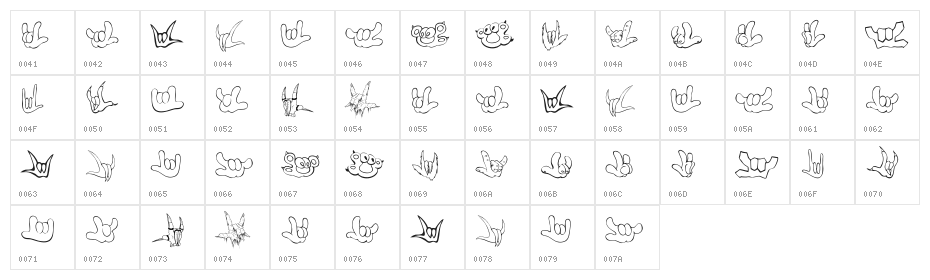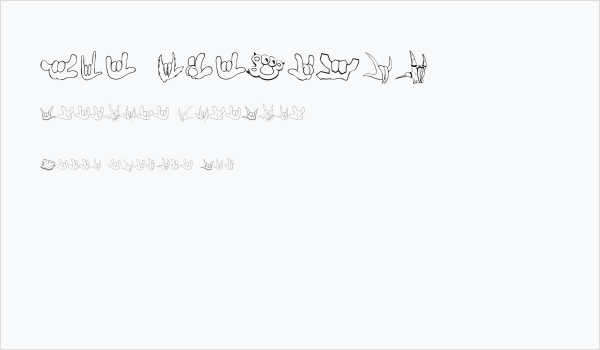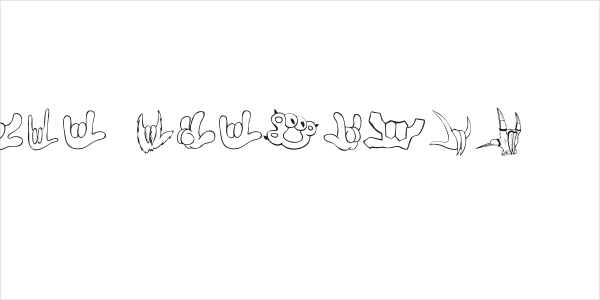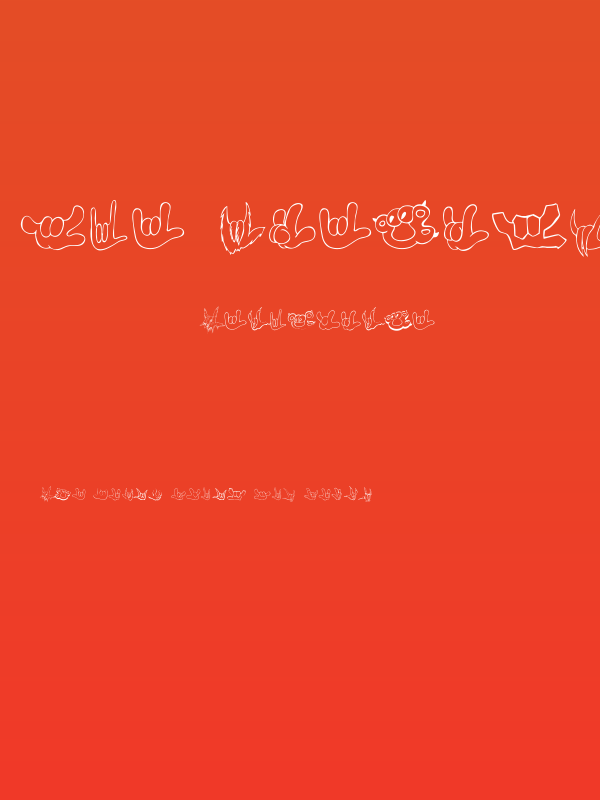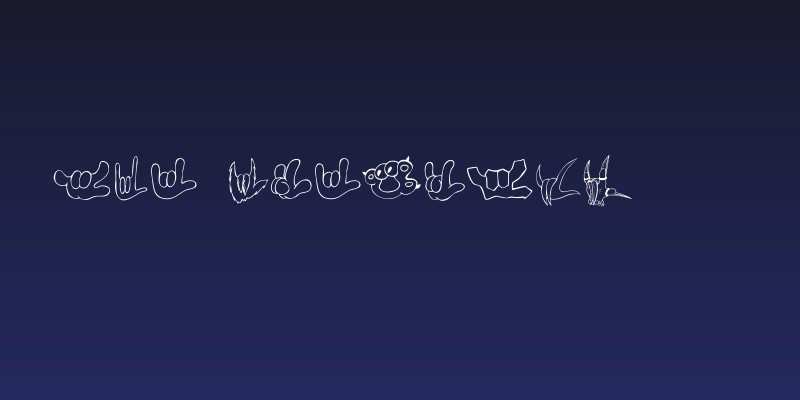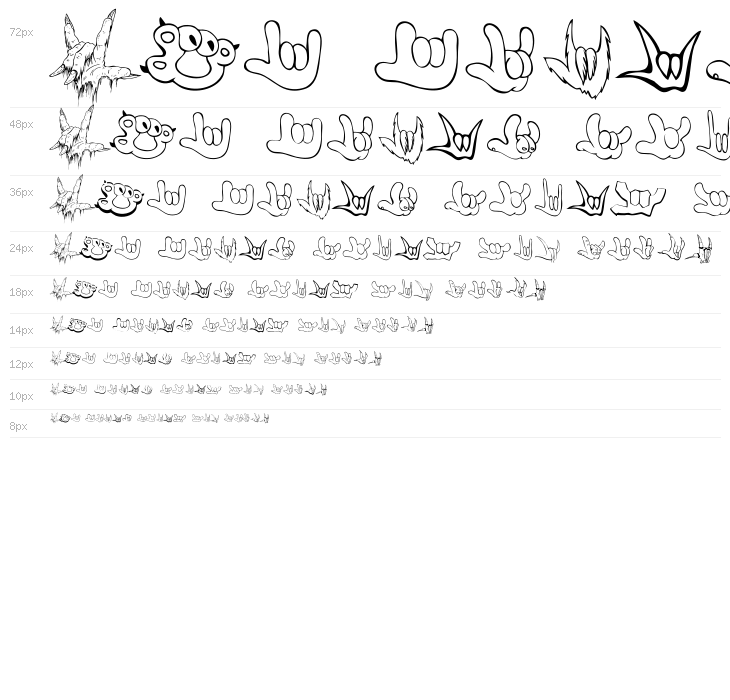
ZOE ILYhands 1.0 Font
ZOE ILYhands 1.0 Description
This font is a unique and playful design that incorporates hand-drawn elements resembling hand gestures. Each character is crafted to mimic the 'I Love You' sign from sign language, giving it a whimsical and friendly appearance. The lines are smooth and flowing, with a consistent stroke width that maintains readability while adding a touch of artistic flair. The font's distinctive style makes it stand out, with each letter maintaining a balance between form and function. It's perfect for projects that require a personal and heartfelt touch, such as greeting cards, posters, or any creative work that aims to convey warmth and affection.
| Overall Style | Whimsical |
| Use Case | Logos, Posters, Greeting Cards |
| Proposed Projects | Ideal for greeting cards, posters, and creative projects conveying warmth and affection. |